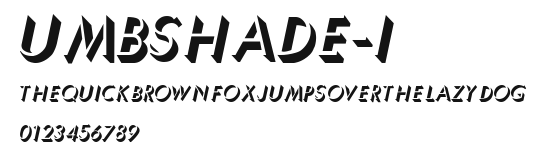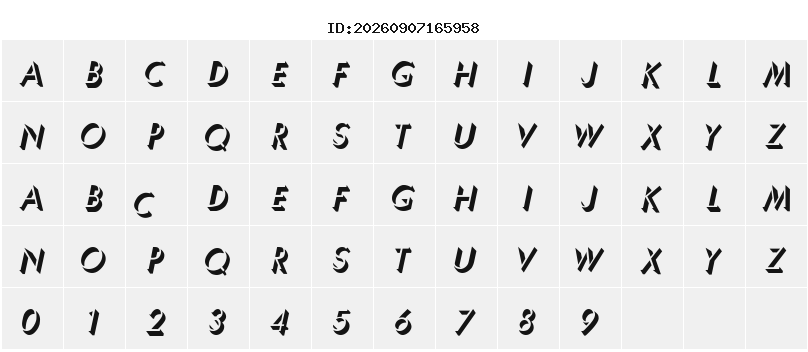
UmbShade-I Preview
About UmbShade-I.ttf
UmbShade-I.ttf is a modern, elegant sans-serif font designed for ultimate readability and visual harmony. Perfect for branding, headlines, web design, and print materials.